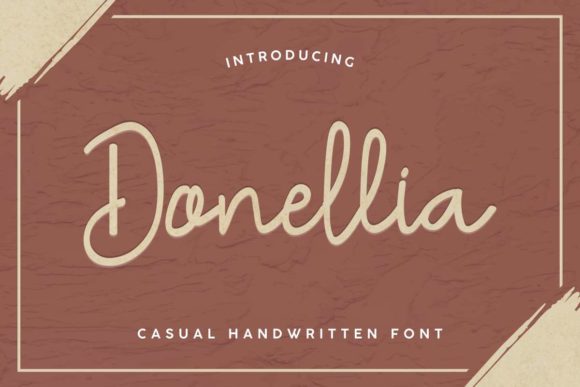
Introducing Donellia Font: Elevate Your DIY Projects with Elegance
Are you a designer, crafter, or DIY enthusiast looking for a unique and elegant font to bring your projects to life? Look no further than Donellia Font, an exclusive signature handwriting script font that exudes sophistication and style. In this article, we’ll dive into the world of Donellia Font, exploring its features, benefits, and uses, as well as provide tips on how to make the most of this gorgeous font.
What is Donellia Font?
Donellia Font is a handwriting script font designed to add a touch of elegance to any DIY project. Its exclusive and unique style sets it apart from other fonts, making it perfect for crafters, designers, and artists who want to add a personal touch to their work. With Donellia Font, you can create stunning handmade cards, invitations, and crafts that are sure to impress.
Features of Donellia Font
So, what makes Donellia Font so special? Here are some of its key features:
- Elegant style: Donellia Font boasts an elegant and sophisticated style that’s perfect for creating high-end DIY projects.
- Handwriting script: This font is a beautiful example of handwriting script, with flowing letters and a personal touch.
- Exclusive design: Donellia Font is an exclusive design, meaning you won’t find it anywhere else. Use it to create unique and original projects.
- Versatile: This font is versatile and can be used for a wide range of DIY projects, from handmade cards to invitations and crafts.
Benefits of Using Donellia Font
So, why should you choose Donellia Font for your DIY projects? Here are some benefits:
- Adds a personal touch: Donellia Font adds a personal touch to your projects, making them stand out from the crowd.
- Creates a professional look: With Donellia Font, you can create professional-looking projects that are sure to impress.
- Easy to use: This font is easy to use, even for those who are new to designing and crafting.
- Unique and exclusive: Donellia Font is a unique and exclusive font that will set your projects apart from others.
Uses of Donellia Font
Donellia Font is perfect for a wide range of DIY projects, including:
- Handmade cards: Create stunning handmade cards for special occasions, such as birthdays, weddings, and holidays.
- Invitations: Design beautiful invitations for parties, events, and other special occasions.
- Crafts: Use Donellia Font to add a personal touch to your crafts, such as scrapbooking, journaling, and more.
- Stationery: Create elegant stationery, including letterheads, envelopes, and notecards.
Tips for Using Donellia Font
Here are some tips for using Donellia Font to get the most out of this gorgeous font:
- Experiment with colors: Try pairing Donellia Font with different colors to create unique and eye-catching projects.
- Play with sizes: Experiment with different font sizes to create visual interest and add emphasis to your projects.
- Combine with other fonts: Try pairing Donellia Font with other fonts to create a unique and interesting look.
- Use it sparingly: Use Donellia Font sparingly to add a touch of elegance to your projects, rather than overwhelming them.